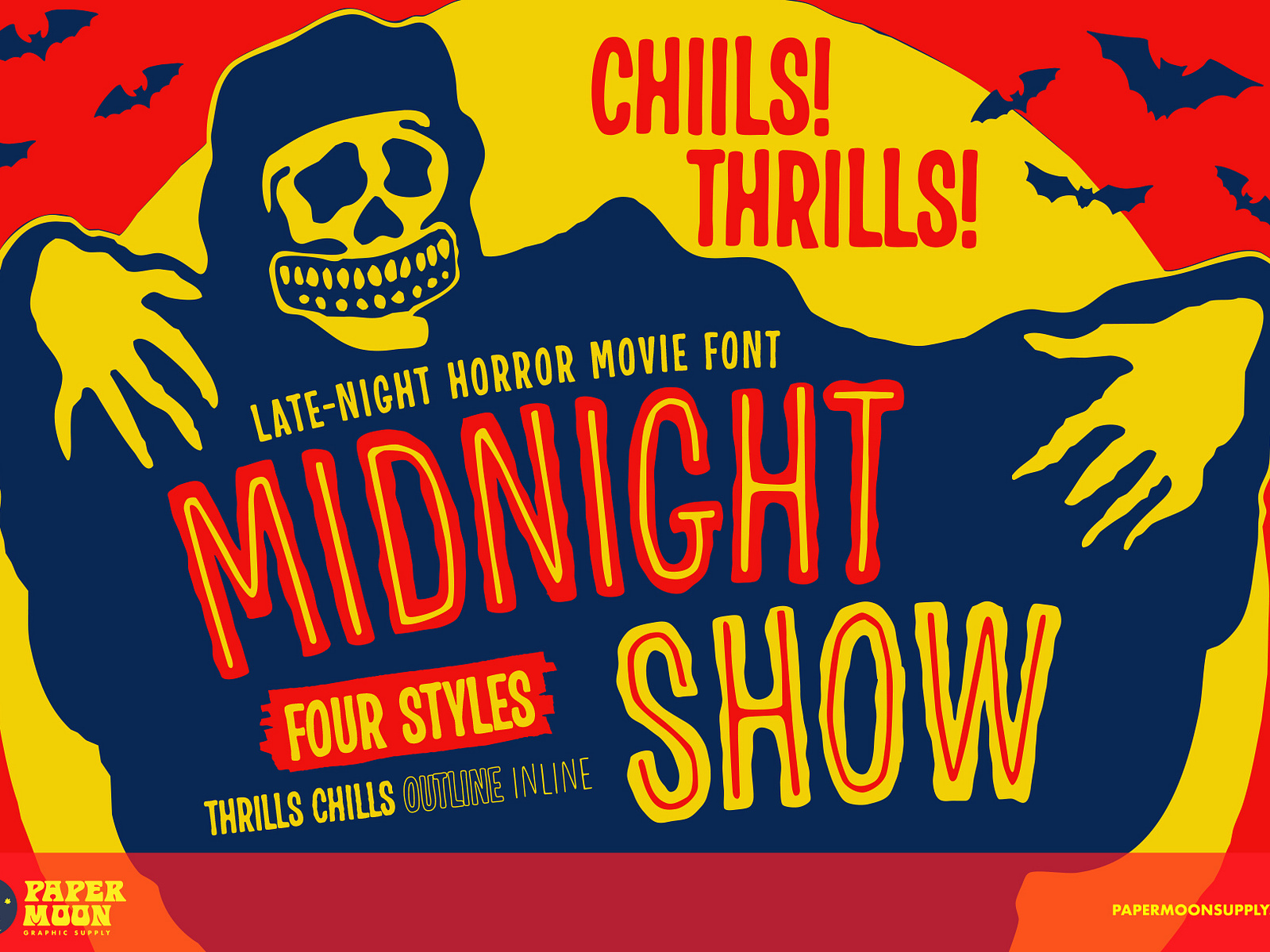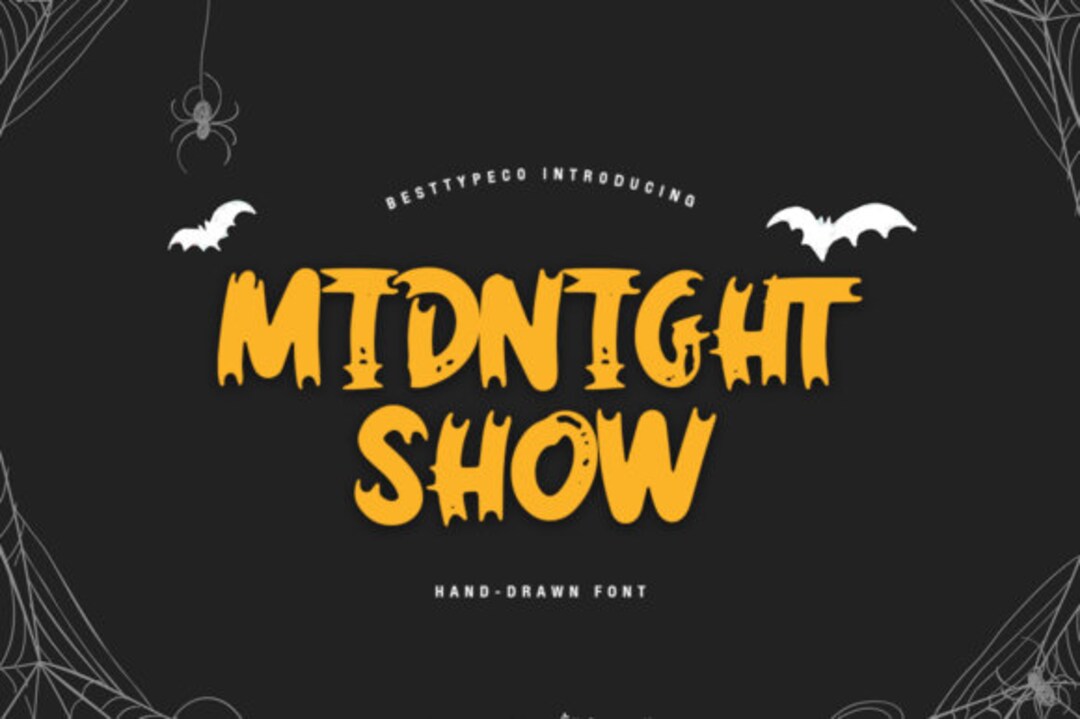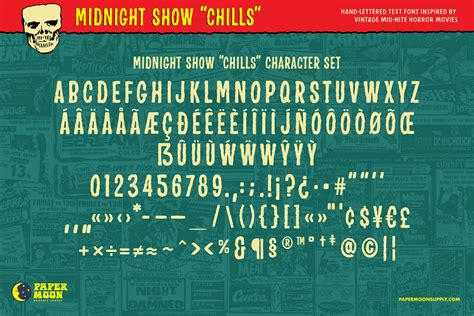
Midnight Show Font . Web free download of midnight show font family with 3 styles. Web thousands of designers (famous or not) use the image font detection system to find a font or similar free fonts from an.
Midnight show is a fancy type font that can be used on any device such as. For commercial usage of this font, the purchase of this license is required. Web midnight show font download is available free from fontget.
It's perfect for creating a. Midnight show typeface, it's an old fashioned typeface,, inspired by classic and vintage sign typography designs. It's perfect for creating a. Midnight show is a fancy type font that can be used on any device such as.
Midnight Show Font - Web midnight show font created by weknow font foundry. Web free download of midnight show font family with 3 styles. Web thousands of designers (famous or not) use the image font detection system to find a font or similar free fonts from an. Web midnight show font download is available free from fontget. For commercial usage of this font, the.
Midnight Show Font - Web thousands of designers (famous or not) use the image font detection system to find a font or similar free fonts from an. For commercial usage of this font, the purchase of this license is required. Midnight show is a fancy type font that can be used on any device such as. It's perfect for creating a. Midnight show typeface,.
Midnight Show Font - Web thousands of designers (famous or not) use the image font detection system to find a font or similar free fonts from an. Web midnight show font created by weknow font foundry. It's perfect for creating a. For commercial usage of this font, the purchase of this license is required. Midnight show is a fancy type font that can be.
Midnight Show Font - Midnight show typeface, it's an old fashioned typeface,, inspired by classic and vintage sign typography designs. Download 10,000 fonts with one click for just $19.95. Web free download of midnight show font family with 3 styles. For commercial usage of this font, the purchase of this license is required. Web midnight show font download is available free from fontget.
Midnight Show Font - Midnight show is a fancy type font that can be used on any device such as. For commercial usage of this font, the purchase of this license is required. Web midnight show font download is available free from fontget. Midnight show typeface, it's an old fashioned typeface,, inspired by classic and vintage sign typography designs. Download 10,000 fonts with one.
Midnight Show Font - Web midnight show font download is available free from fontget. It's perfect for creating a. Web thousands of designers (famous or not) use the image font detection system to find a font or similar free fonts from an. Web free download of midnight show font family with 3 styles. Web midnight show font created by weknow font foundry.
Midnight Show Font - It's perfect for creating a. Web free download of midnight show font family with 3 styles. Web midnight show font created by weknow font foundry. Midnight show is a fancy type font that can be used on any device such as. Download 10,000 fonts with one click for just $19.95.
Midnight Show Font - Midnight show is a fancy type font that can be used on any device such as. Midnight show typeface, it's an old fashioned typeface,, inspired by classic and vintage sign typography designs. It's perfect for creating a. For commercial usage of this font, the purchase of this license is required. Web midnight show font created by weknow font foundry.
Midnight Show Font - Web midnight show font download is available free from fontget. Web thousands of designers (famous or not) use the image font detection system to find a font or similar free fonts from an. Midnight show typeface, it's an old fashioned typeface,, inspired by classic and vintage sign typography designs. Midnight show is a fancy type font that can be used.
Midnight Show Font - Midnight show typeface, it's an old fashioned typeface,, inspired by classic and vintage sign typography designs. Midnight show is a fancy type font that can be used on any device such as. It's perfect for creating a. Web free download of midnight show font family with 3 styles. Web midnight show font created by weknow font foundry.
Midnight Show Font - Midnight show is a fancy type font that can be used on any device such as. For commercial usage of this font, the purchase of this license is required. Midnight show typeface, it's an old fashioned typeface,, inspired by classic and vintage sign typography designs. Web free download of midnight show font family with 3 styles. Web thousands of designers.
Midnight Show Font - Midnight show is a fancy type font that can be used on any device such as. Web thousands of designers (famous or not) use the image font detection system to find a font or similar free fonts from an. Download 10,000 fonts with one click for just $19.95. Web midnight show font download is available free from fontget. Web free.
Midnight Show Font - Web free download of midnight show font family with 3 styles. Web midnight show font download is available free from fontget. Web midnight show font created by weknow font foundry. Midnight show is a fancy type font that can be used on any device such as. For commercial usage of this font, the purchase of this license is required.